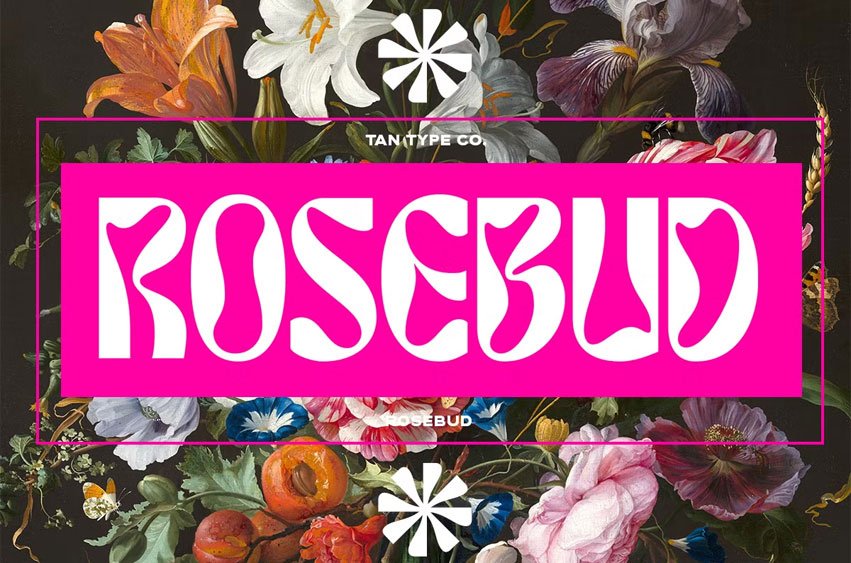
Tan Rosebud Font is a retro inspired typeface.
A contemporary font with lots of psychedelic twist, perfect for making statement.
Tan Rosebud Font is a retro inspired typeface.
A contemporary font with lots of psychedelic twist, perfect for making statement.